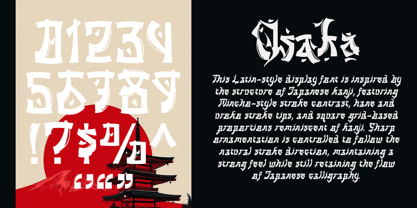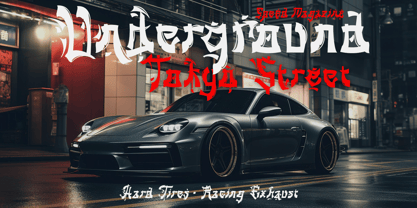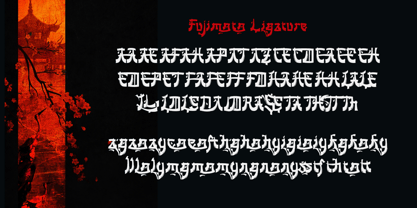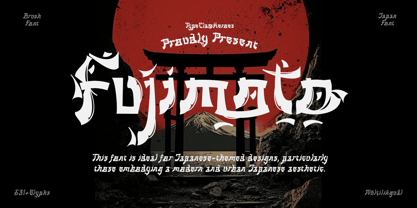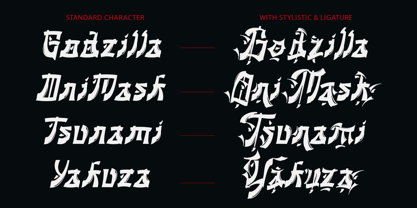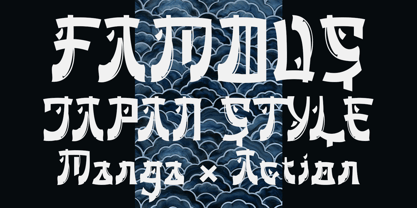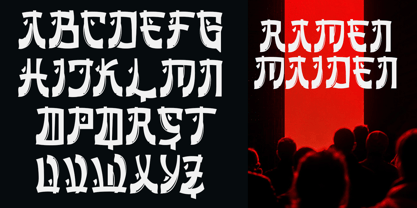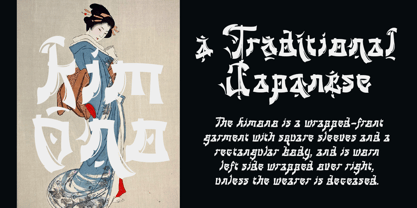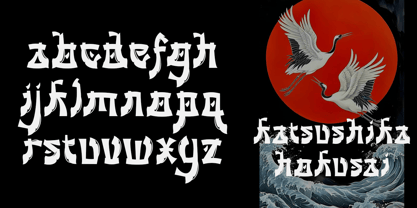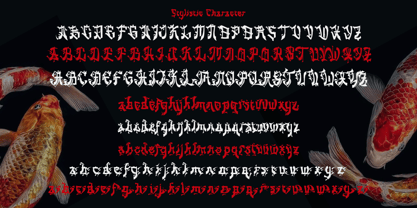
Fujimoto
by TypeClassHeroes
The Fujimoto Font Family was designed by Suandana ipandemade and published by TypeClassHeroes. Fujimoto contains 2 styles and family package options. More about this family
Introducing Fujimoto, this Latin-style display font is inspired by the structure of Japanese kanji, featuring Mincho-style stroke contrast, hane and uroko stroke tips, and square grid-based proportions reminiscent of kanji. Sharp ornamentation is controlled to follow the natural stroke direction, maintaining a strong feel while still retaining the flow of Japanese calligraphy. This font is ideal for Japanese-themed designs, particularly those embodying a modern and urban Japanese aesthetic.
Designers: Suandana ipandemade
Foundry: TypeClassHeroes